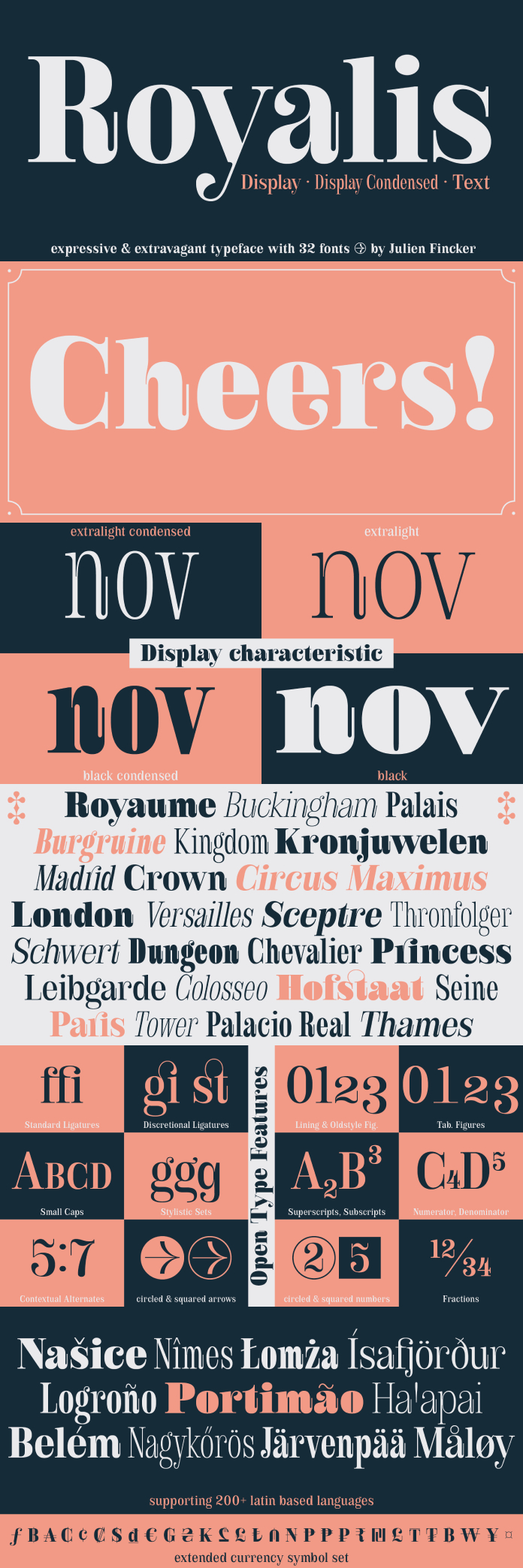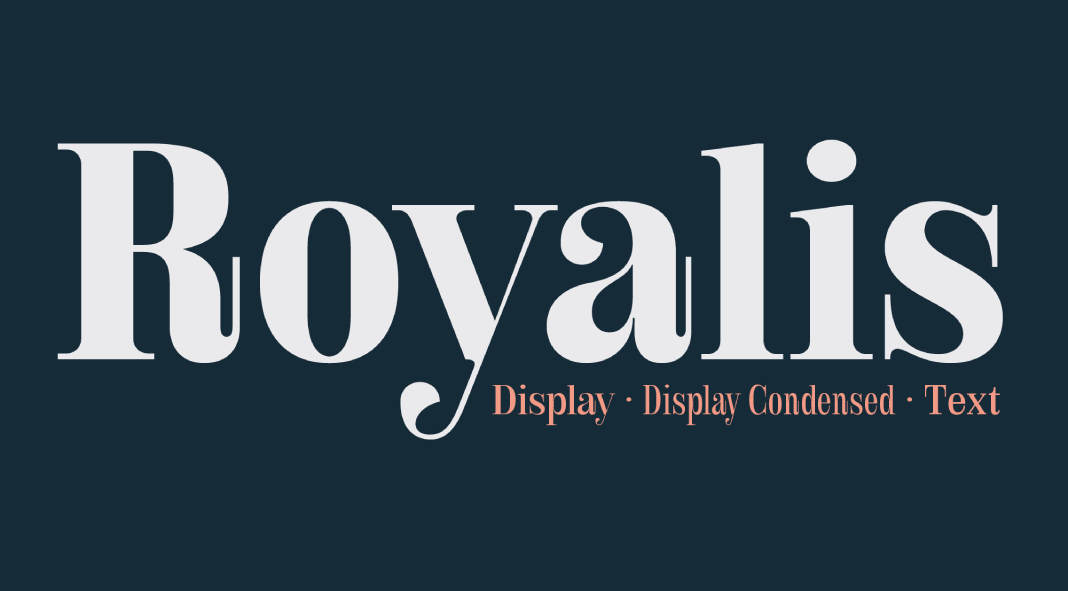
The Royalis font family evokes expressiveness and extravagance with its high-contrast serifs and dynamic features like elongated terminals or deep ink traps. It’s available in three versions: a display version of six weights, an accompanying condensed version for display use, plus a text edition for body copy consisting of four weights – all-inclusive with italics as well! This makes this serif font family genuinely versatile for any editorial design work, packaging projects, branding applications, or advertising campaigns.
From its range of weights and capabilities, Royalis can be used in various ways. From the thinner weights offering an air of elegance to the more powerful thicker ones presenting bold contrast.
The Royalis font family features a vast selection of 32 weights, ranging from extra light to black with italics included in each weight. Additionally, the typeface offers three different versions – Display, Display Condensed, and Text – plus an extensive collection of 1027 characters compatible with more than 200 Latin-based languages! As if this wasn’t already impressive enough; additional Open Type features such as alternative characters (i.e., stylistic sets and small caps), automatic fractions, etc., make it indispensable for any project you may have on hand.
Open Type features, coupled with an efficient system, have allowed for vast selections of arrows and numbers that can be quickly “written” without the need to first select them in a glyph palette. This is truly remarkable!